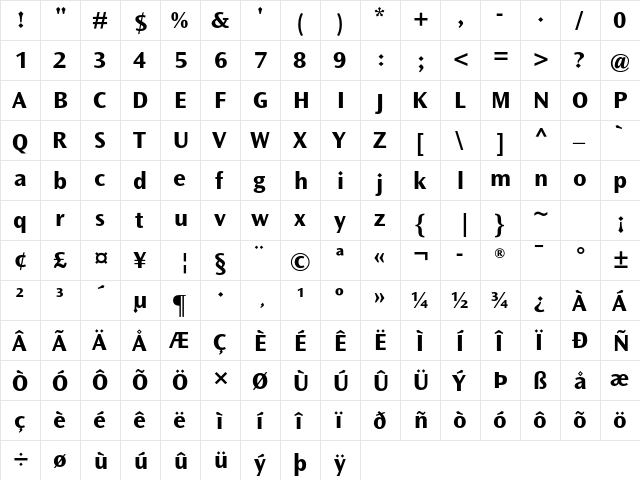
Ocean Sans Std Bold SemiExtended
| Designer | Chong Wah |
Design Context for Ocean Sans Std Typeface
Ocean Sans Std takes a measured approach to typography — its balanced proportions and neutral character make it a reliable workhorse for both digital and print work. The heavy weight commands attention and anchors typographic hierarchies.